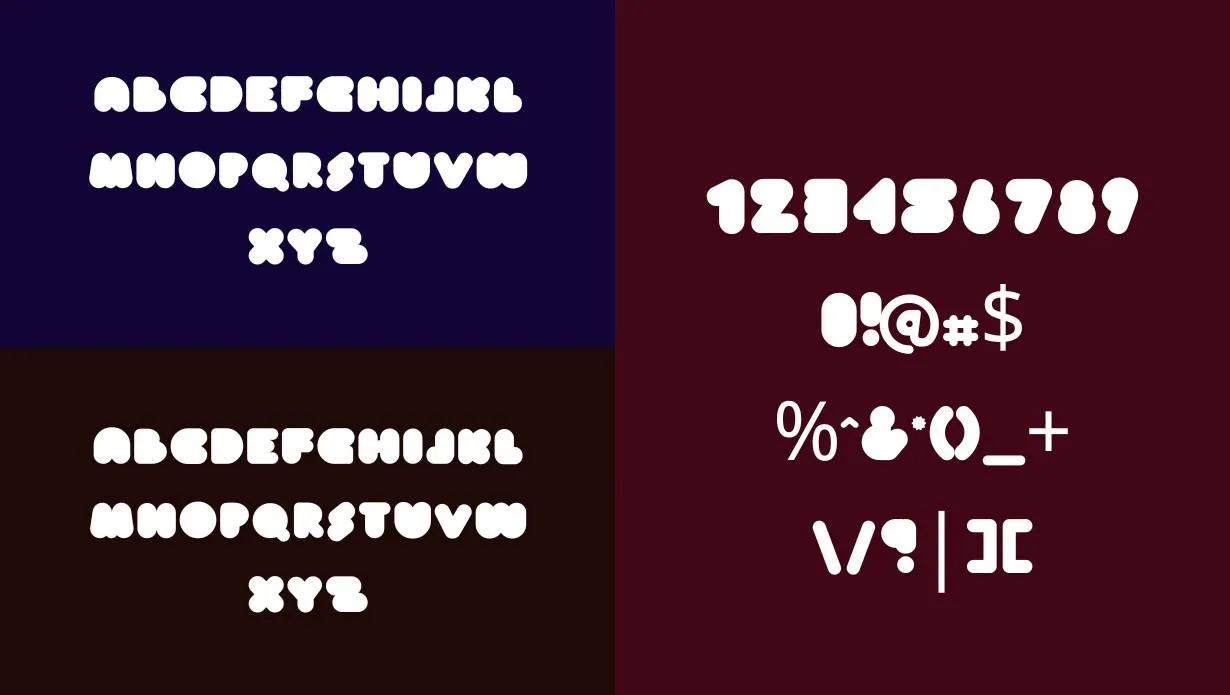
The Clean Ape Typeface font boasts a polished and refined appearance, offering sophistication and precision. In Adobe Photoshop, it creates polished and sharp designs with an air of elegance.
When applied within CSS, it delivers a sophisticated touch to web elements, ensuring a stylish and refined look. In Canva, this font is perfect for producing elegant and stylish social media posts or refined event visuals that exude sophistication and class.
| Name | Clean Ape Typeface Font |
| Designer | Rahadi Istiko |